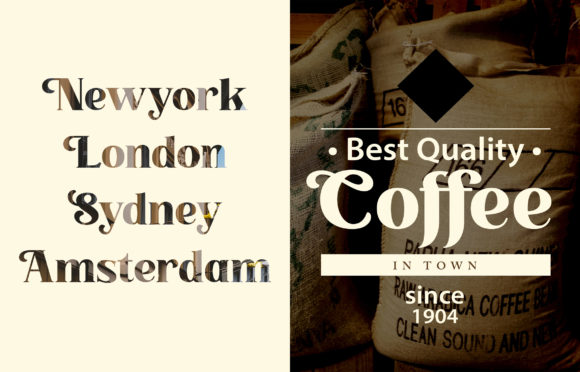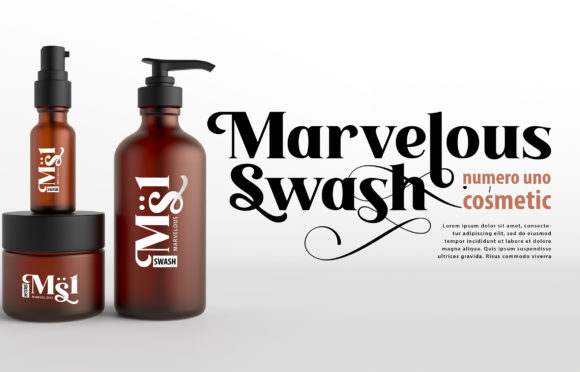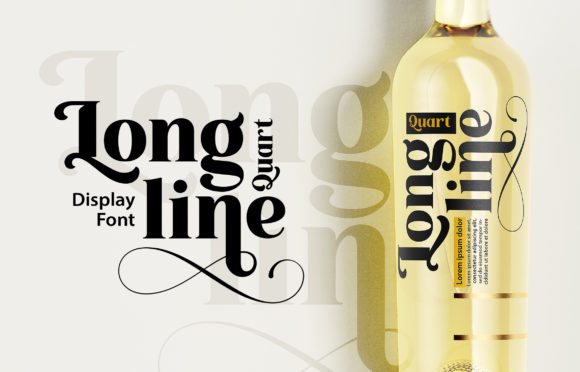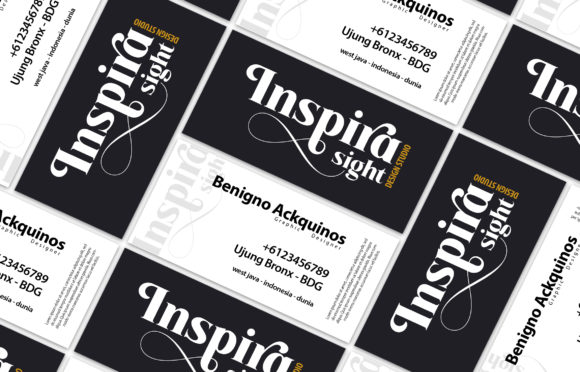
Introduction to Longline Quartz Font
Longline Quartz is a charming and friendly display font.
You can use it in a variety of projects such as logos, t-shirt & mug designs, magazine covers and more Make your designs unique with this spectacular font.
Key Features of Longline Quartz Font
Why Choose Longline Quartz Font?
Longline Quartz Font offers exceptional quality and versatility, making it a valuable addition to your design toolkit. Whether you’re creating for personal projects or commercial use, Longline Quartz Font delivers professional results.